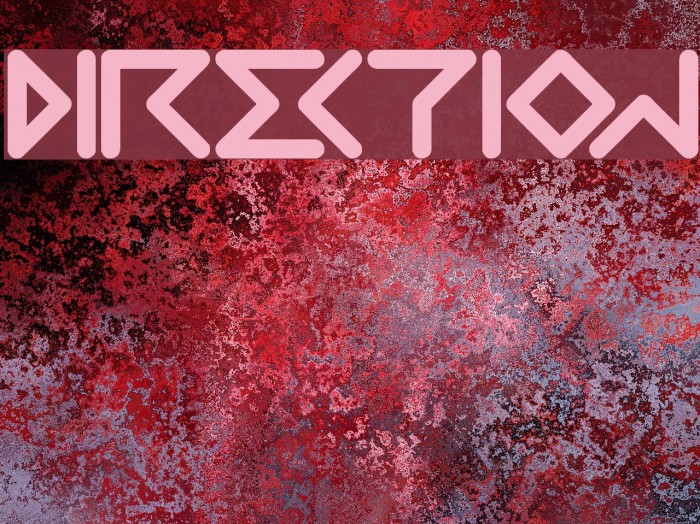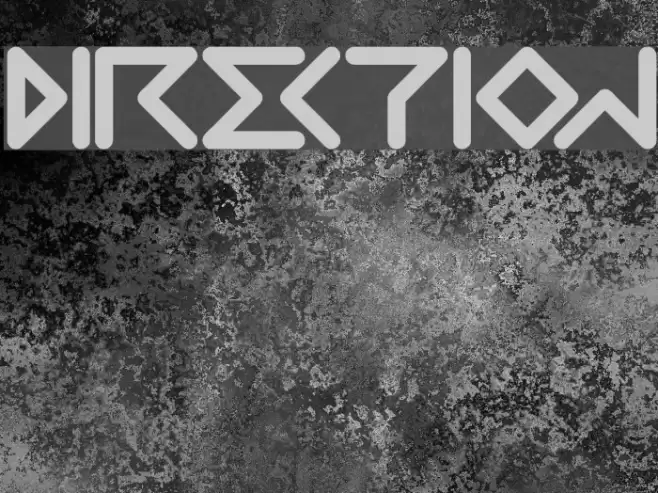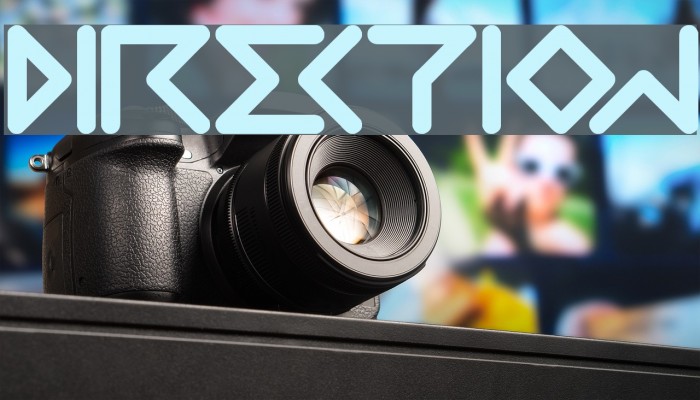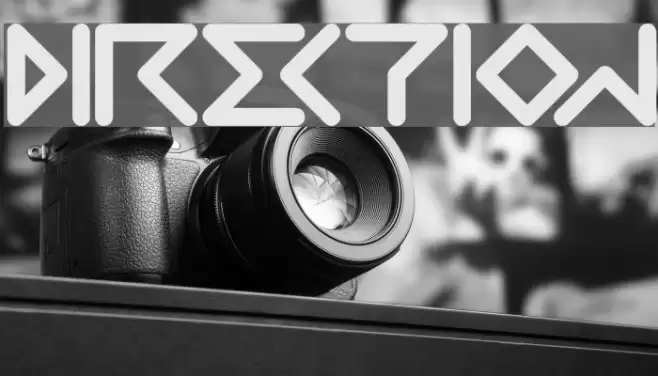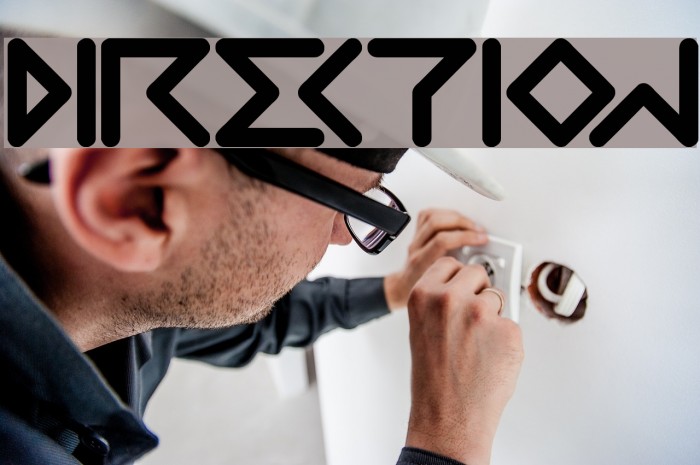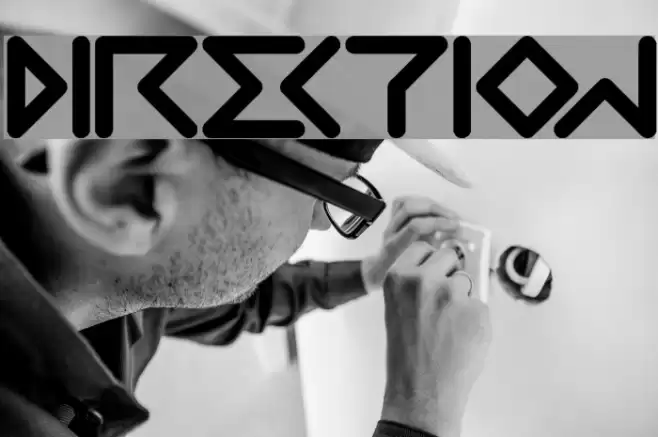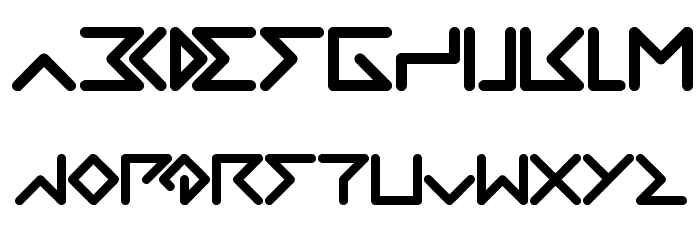
DIRECTION Font
DIRECTION Description
This font features a unique, futuristic design with geometric shapes and sharp angles. Each character is composed of bold, thick lines that create a sense of strength and modernity. The uppercase letters are particularly striking, with a consistent use of angular forms that give the font a cohesive look. The lowercase letters maintain the same geometric style, ensuring uniformity across the typeface. Numbers and special characters are designed with the same attention to detail, making them easily recognizable yet stylistically consistent with the rest of the font. The overall appearance is both modern and distinctive, suitable for projects that require a bold, eye-catching typeface.
| Proposed Projects | Ideal for sci-fi themed projects, technology branding, video game titles, and modern poster designs. |